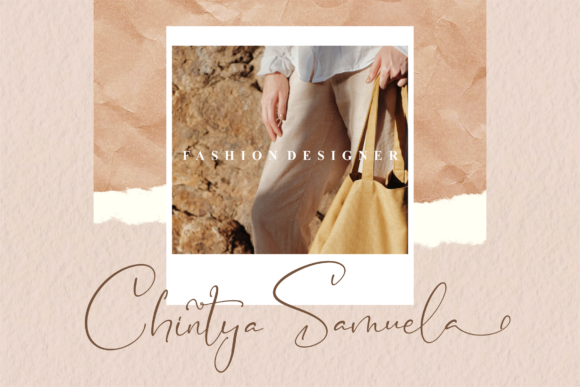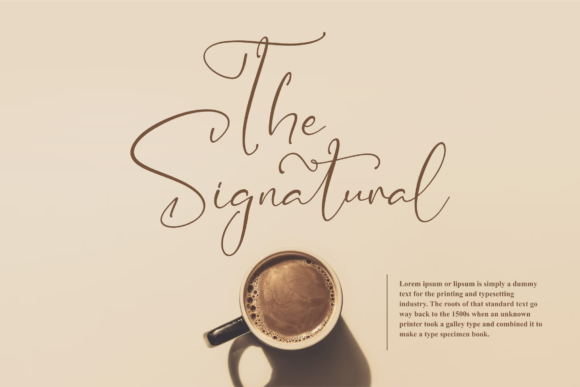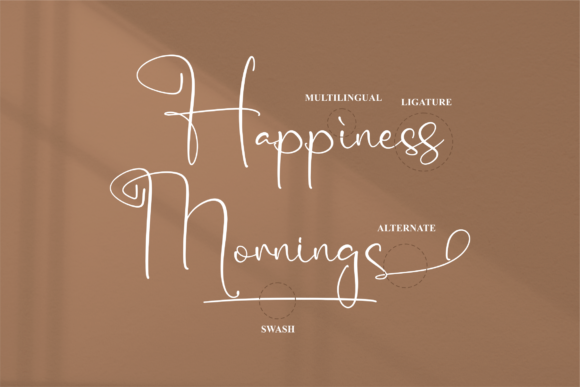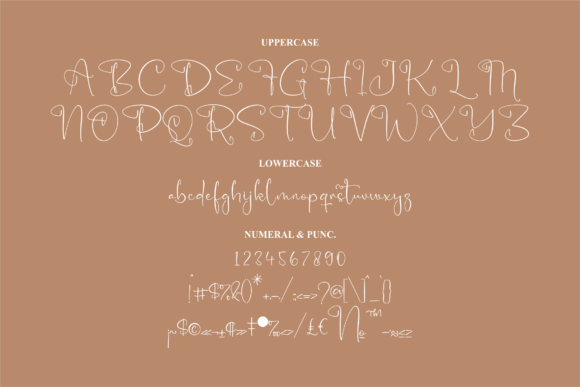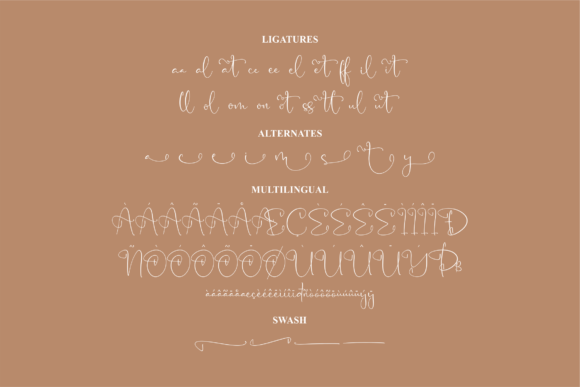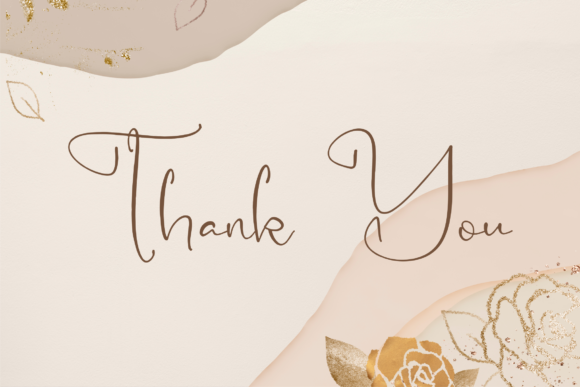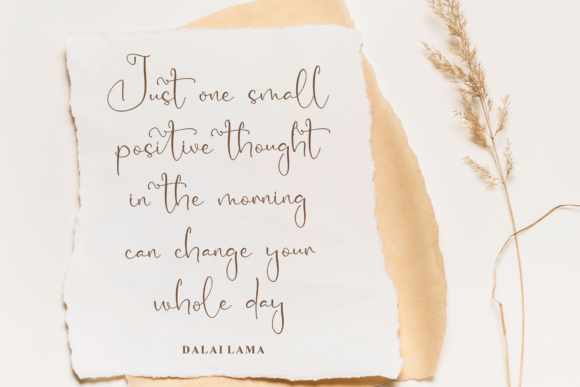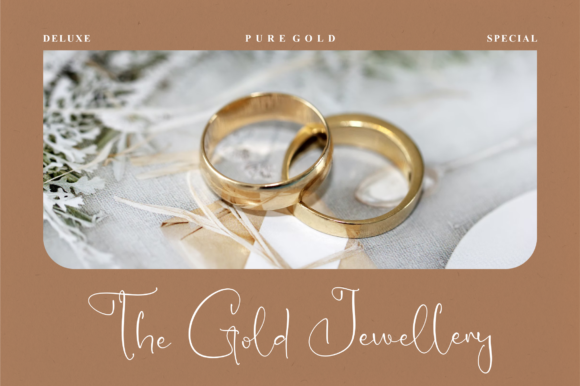
Madeline Font
About Madeline Font
Madeline is a beautiful and fashionable handwritten font. It is PUA encoded which means you can access all of the glyphs and swashes with ease!
Add this chic and lovely looking font to each of your love letters, wedding invitations or favorite design ideas, and you will be astounded by the outcome.